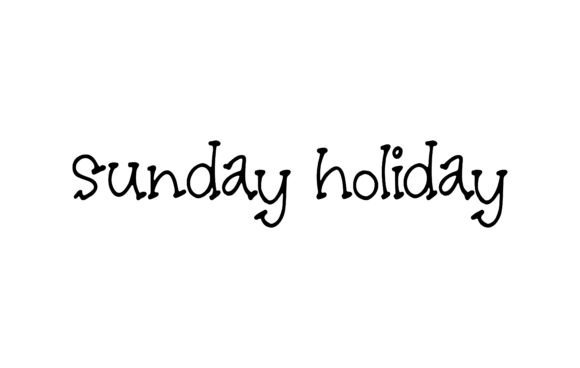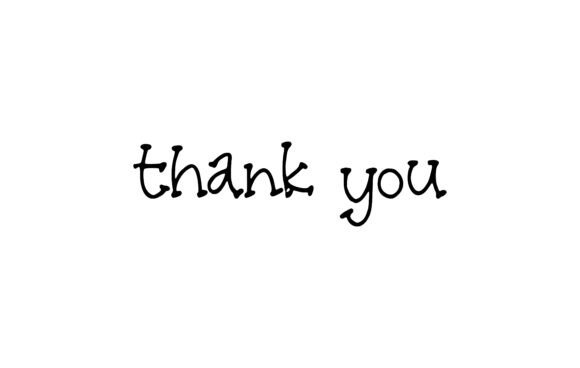
Hana Font: The Ultimate Handwritten Font for Creative Designs
Are you looking for a font that can add a touch of romance and elegance to your creative projects? Look no further than Hana Font, an authentic handwritten font that is sure to become your new favorite. With its unique blend of sophistication and playfulness, Hana Font is the perfect choice for designers and crafters who want to take their ideas to the next level.
What Makes Hana Font So Special?
Hana Font is expertly designed to provide a romantic touch to any design project. Its handwritten style gives it a personal and intimate feel, making it perfect for projects that require a touch of warmth and personality. Whether you’re creating a wedding invitation, a social media post, or a magazine headline, Hana Font is sure to make your design stand out.
Legibility and Versatility
One of the best things about Hana Font is its legibility. This font is designed to be easy to read, making it perfect for use as both title and body text. Its clear and concise style ensures that your message gets across, while its elegant curves and lines add a touch of sophistication to your design.
Hana Font is also incredibly versatile. Its unique style makes it suitable for a wide range of design projects, including:
- Magazine headlines and articles
- Cards and greeting cards
Why Designers and Crafters Love Hana Font
So why do designers and crafters love Hana Font so much? Here are just a few reasons:
- Elegance and sophistication: Hana Font adds a touch of elegance and sophistication to any design project, making it perfect for high-end brands and luxury products.
- Romantic touch: Hana Font’s handwritten style gives it a romantic and personal feel, making it perfect for wedding invitations, love letters, and other projects that require a touch of warmth.
- Legibility and readability: Hana Font is easy to read and understand, making it perfect for use as both title and body text.
- Versatility: Hana Font is suitable for a wide range of design projects, from magazine headlines to social media posts.
How to Use Hana Font in Your Designs
Using Hana Font in your designs is easy. Here are a few tips to get you started:
- Pair it with other fonts: Hana Font looks great when paired with other fonts, such as sans-serif fonts or script fonts.
- Use it for headings and titles: Hana Font is perfect for use as headings and titles, adding a touch of elegance and sophistication to your design.
- Use it for body text: Hana Font is also suitable for use as body text, providing a clear and concise way to communicate your message.
In conclusion, Hana Font is an authentic handwritten font with a romantic touch that is sure to become your new favorite. With its elegant curves and lines, legibility, and versatility, Hana Font is the perfect choice for designers and crafters who want to take their creative ideas to the highest level. Whether you’re creating a wedding invitation, a social media post, or a magazine headline, Hana Font is sure to make your design stand out.